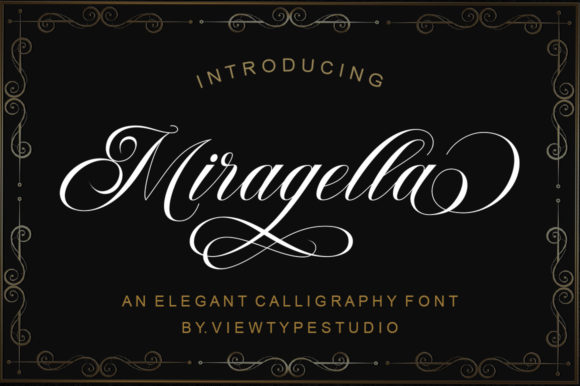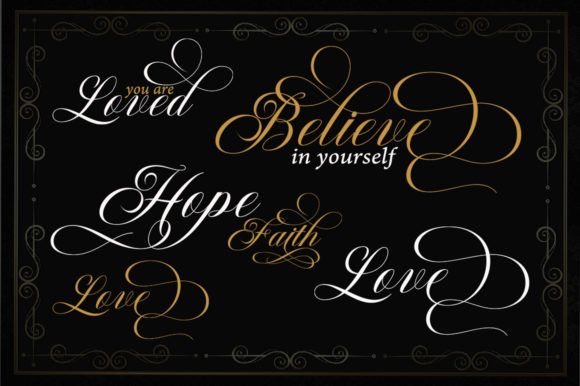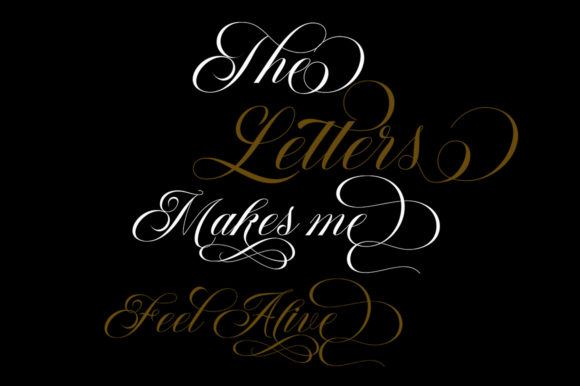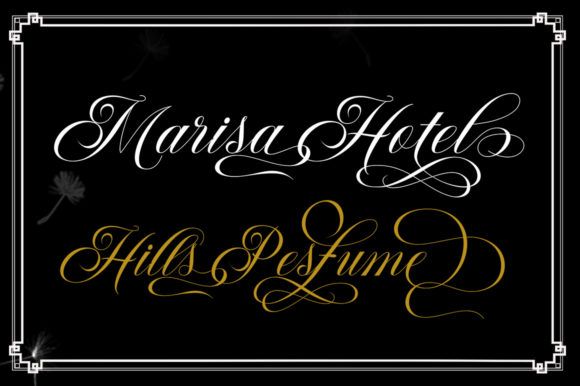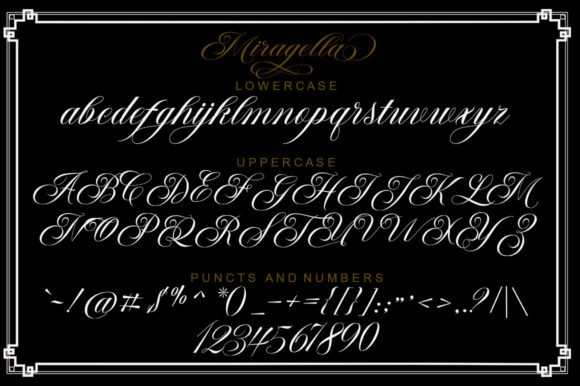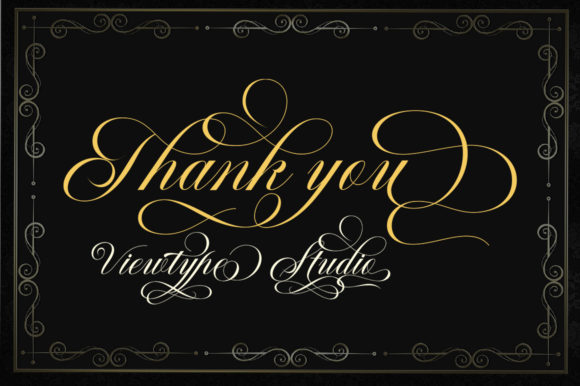
Miragella Font
About Miragella Font
Miragella is a modern script font carefully created with a touch of elegance. Use this font to add a beautiful touch to your next design!